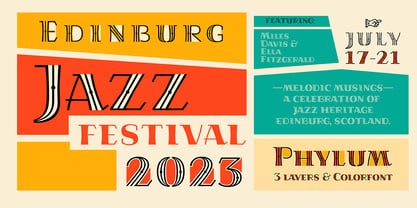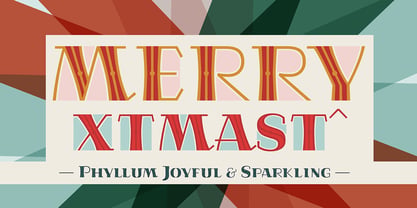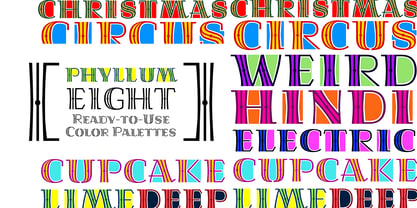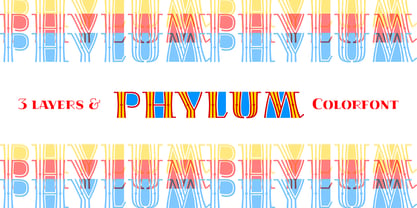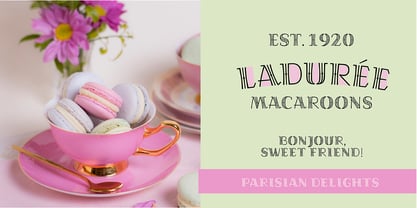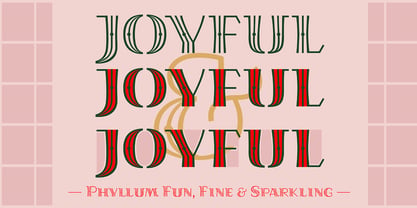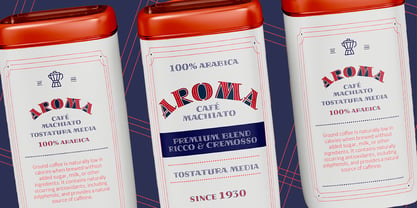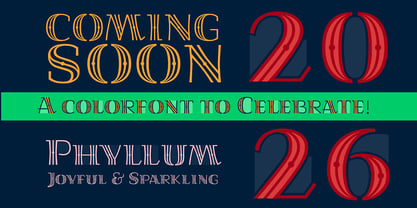
Phylum
by Cocijotype
Phylum is a display typeface that captures the spirit of celebration, balancing elegance with a playful personality. Its layered design opens up endless color possibilities, making it ideal for branding, events, packaging, and any project that deserves to stand out.
Phylum family includes three individual layers and a Color Font version with eight curated color palettes, offering the flexibility to create custom color combinations or use ready-to-go palettes. The web package includes the Color Font version with the eight predefined palettes, optimized for use in modern browsers.